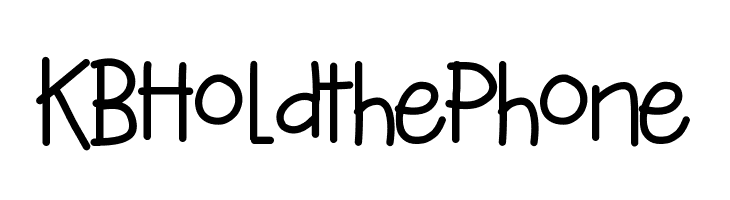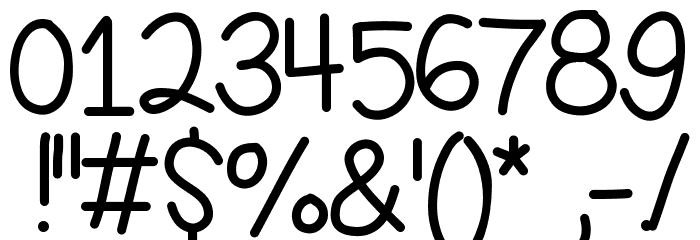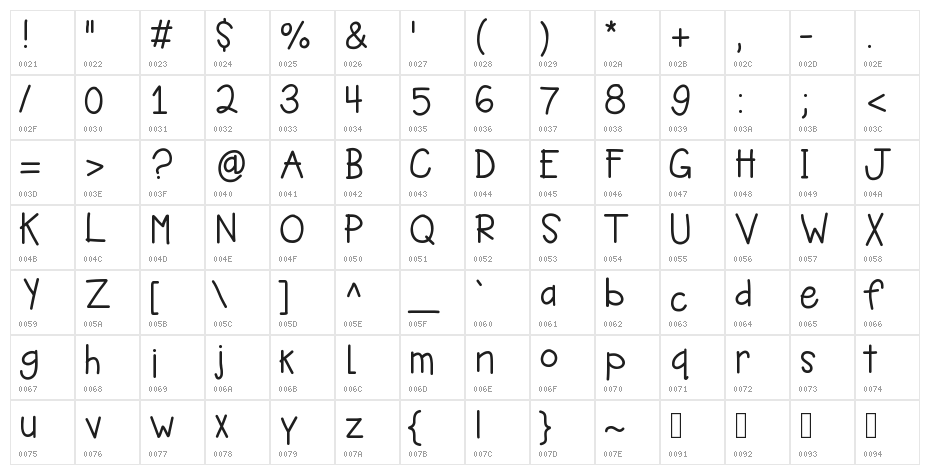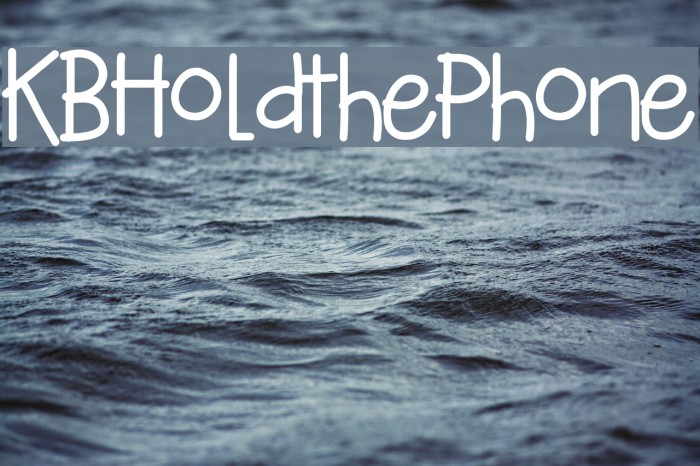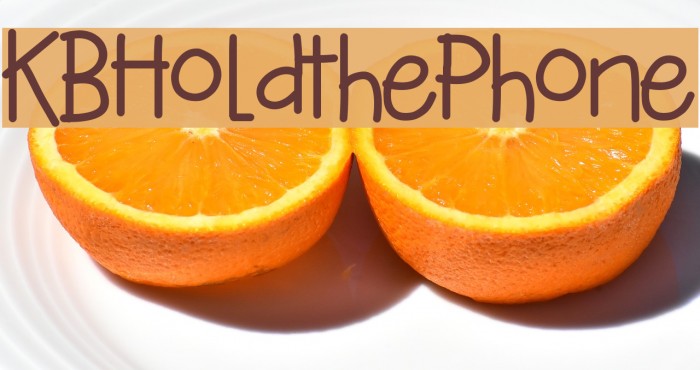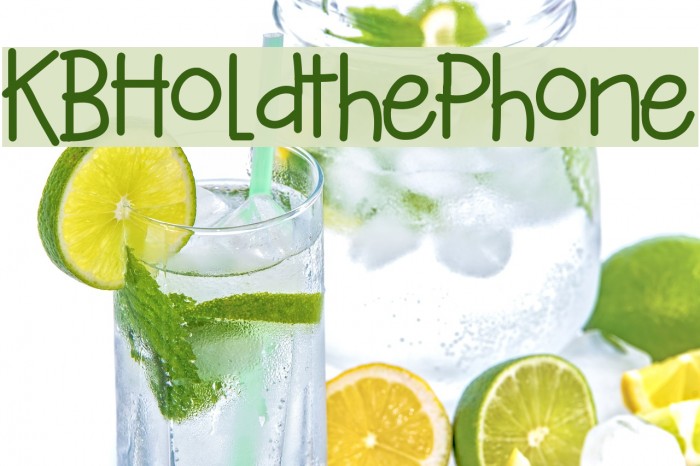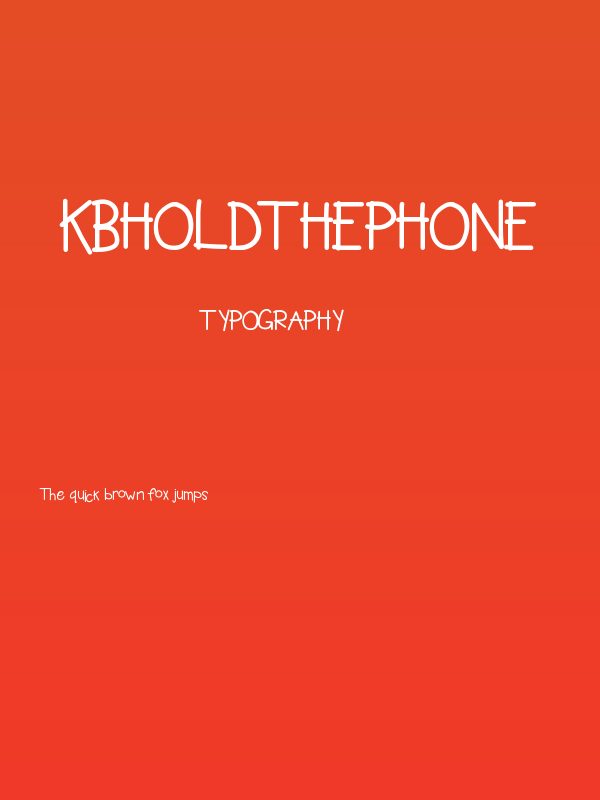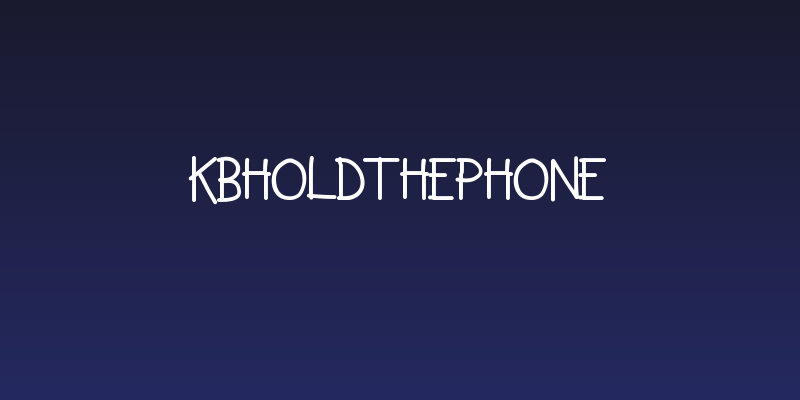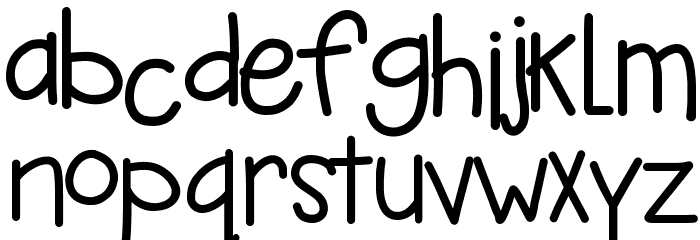
KBHoldthePhone Font
KBHoldthePhone Description
This playful and whimsical font features a handwritten style with rounded edges and a casual appearance. The letters are slightly irregular, giving it a friendly and approachable feel. The uppercase and lowercase letters maintain a consistent flow, while the numerals and special characters complement the overall design. The font's informal nature makes it suitable for creative projects that require a personal touch. Its legibility and charm make it ideal for children's books, greeting cards, and playful branding.
| Proposed Projects | Children's books, greeting cards, playful branding, casual invitations. |